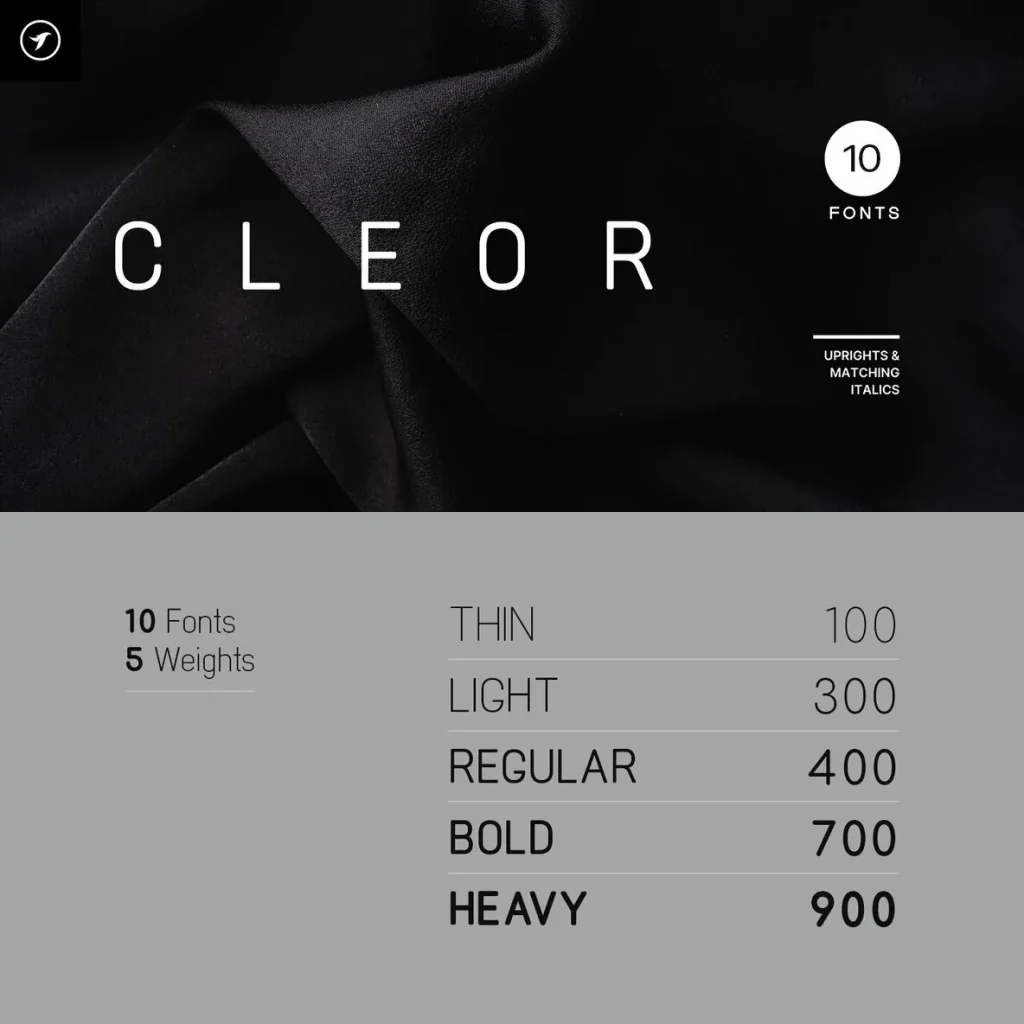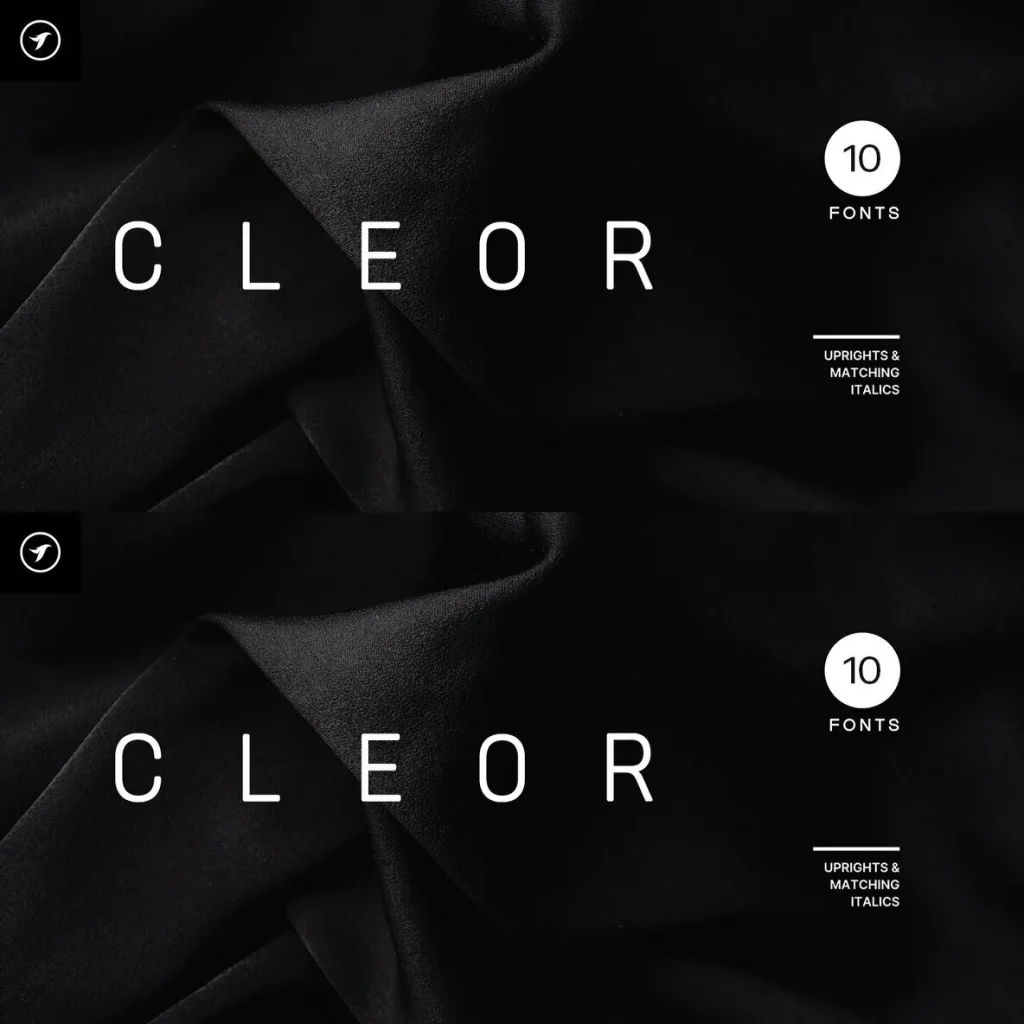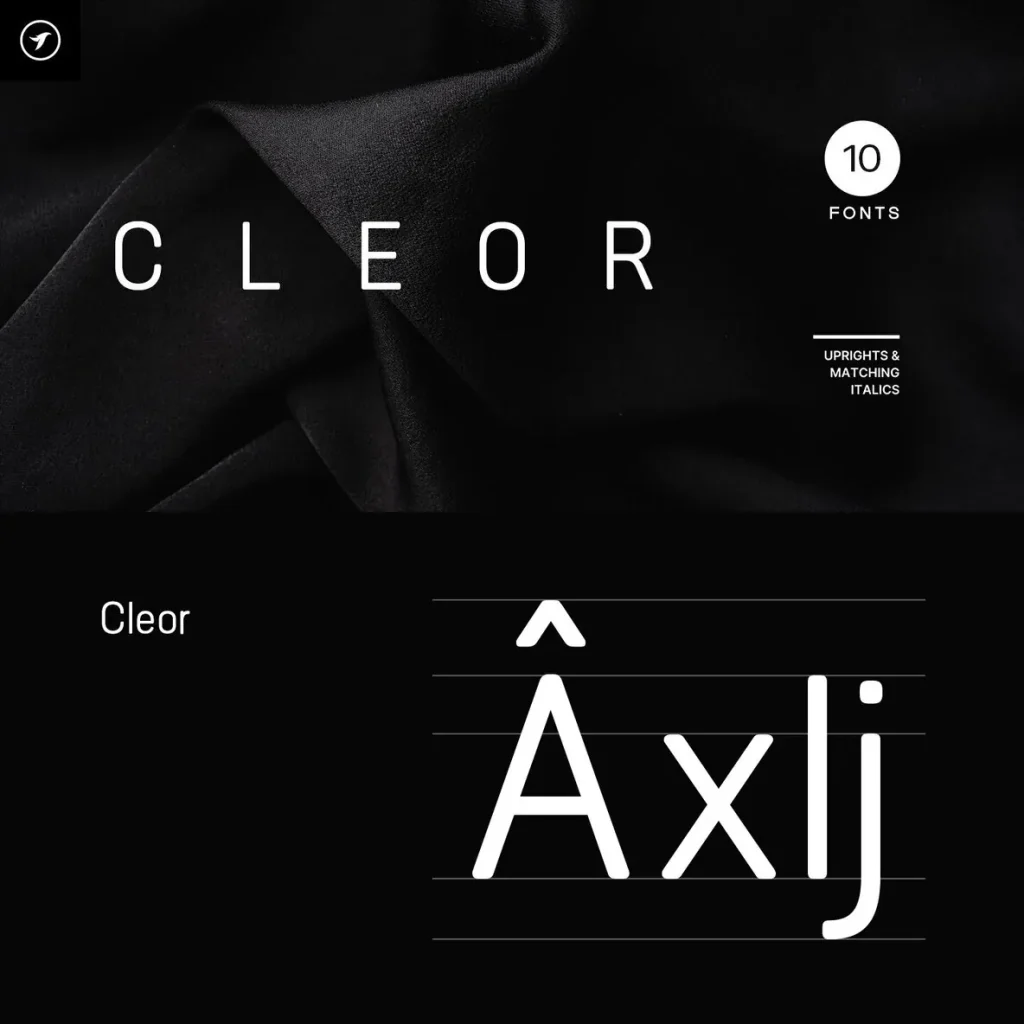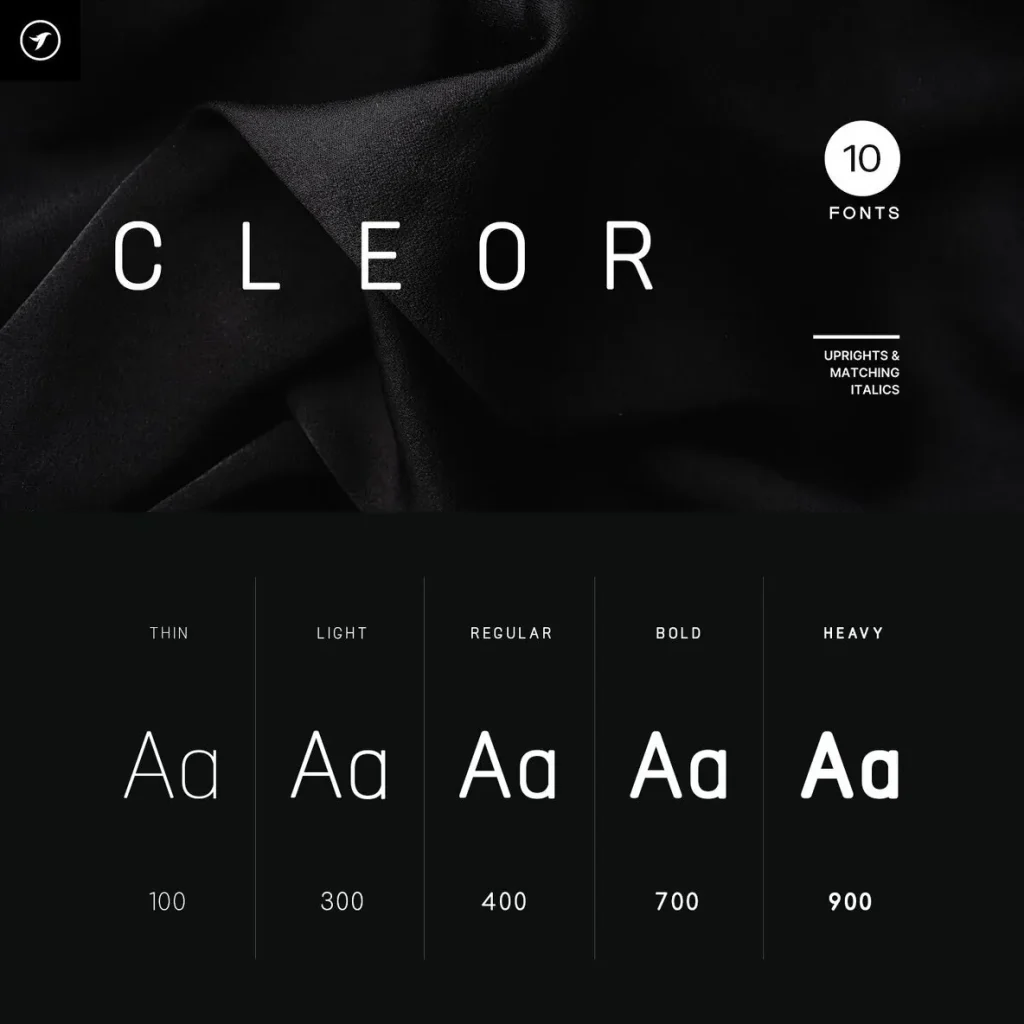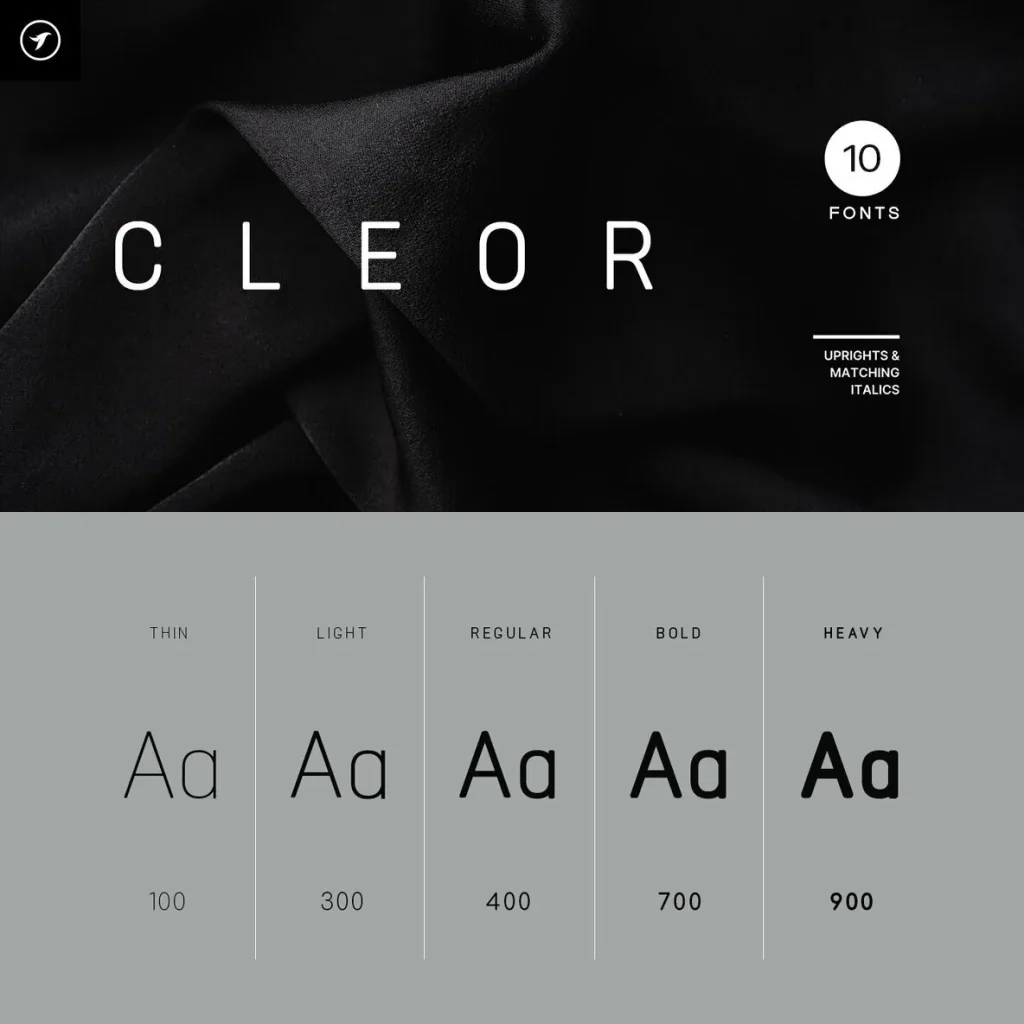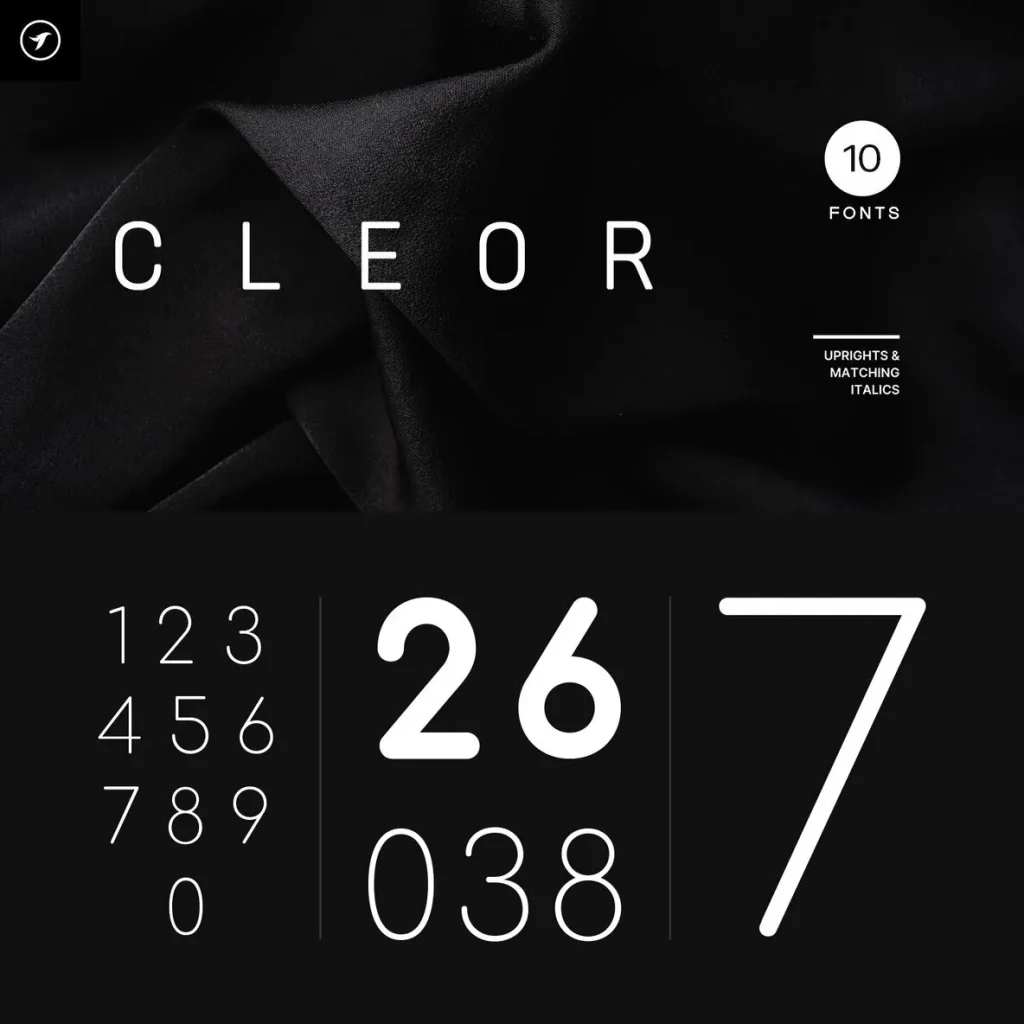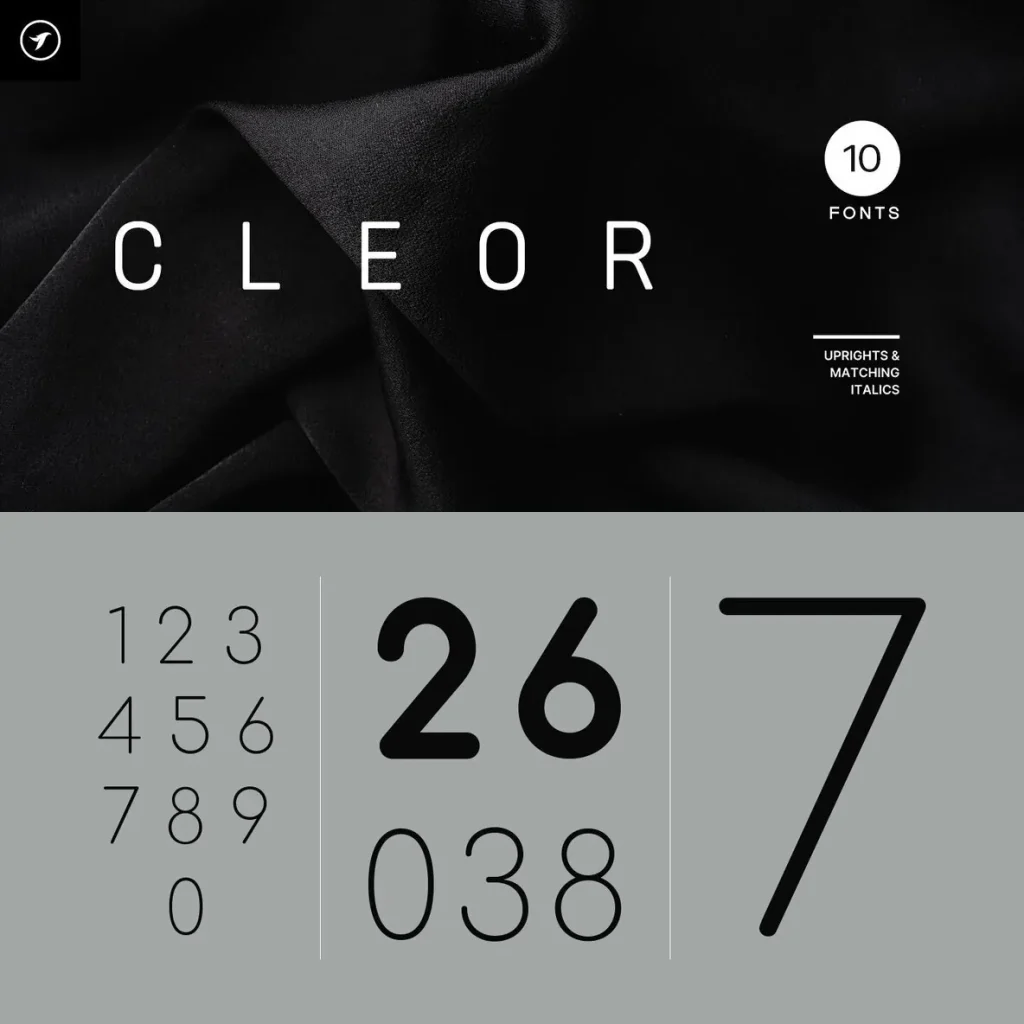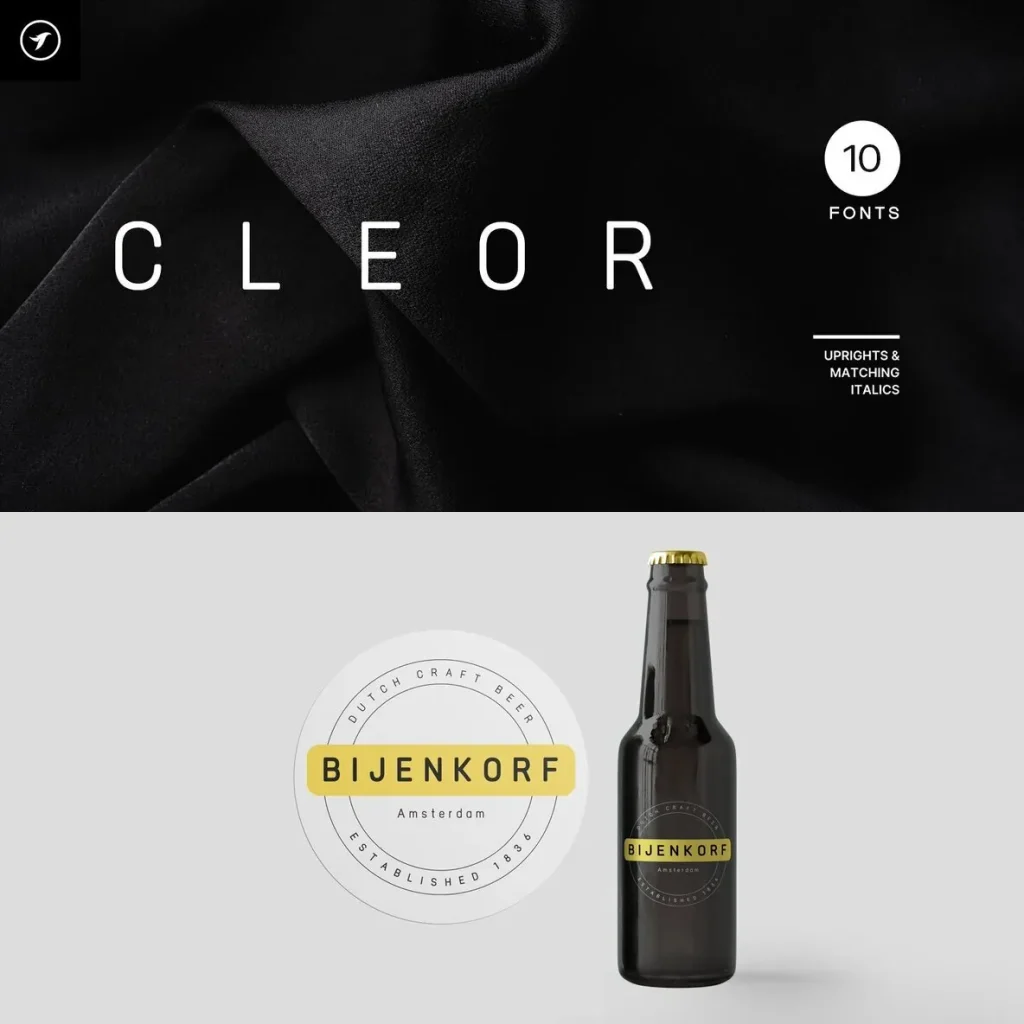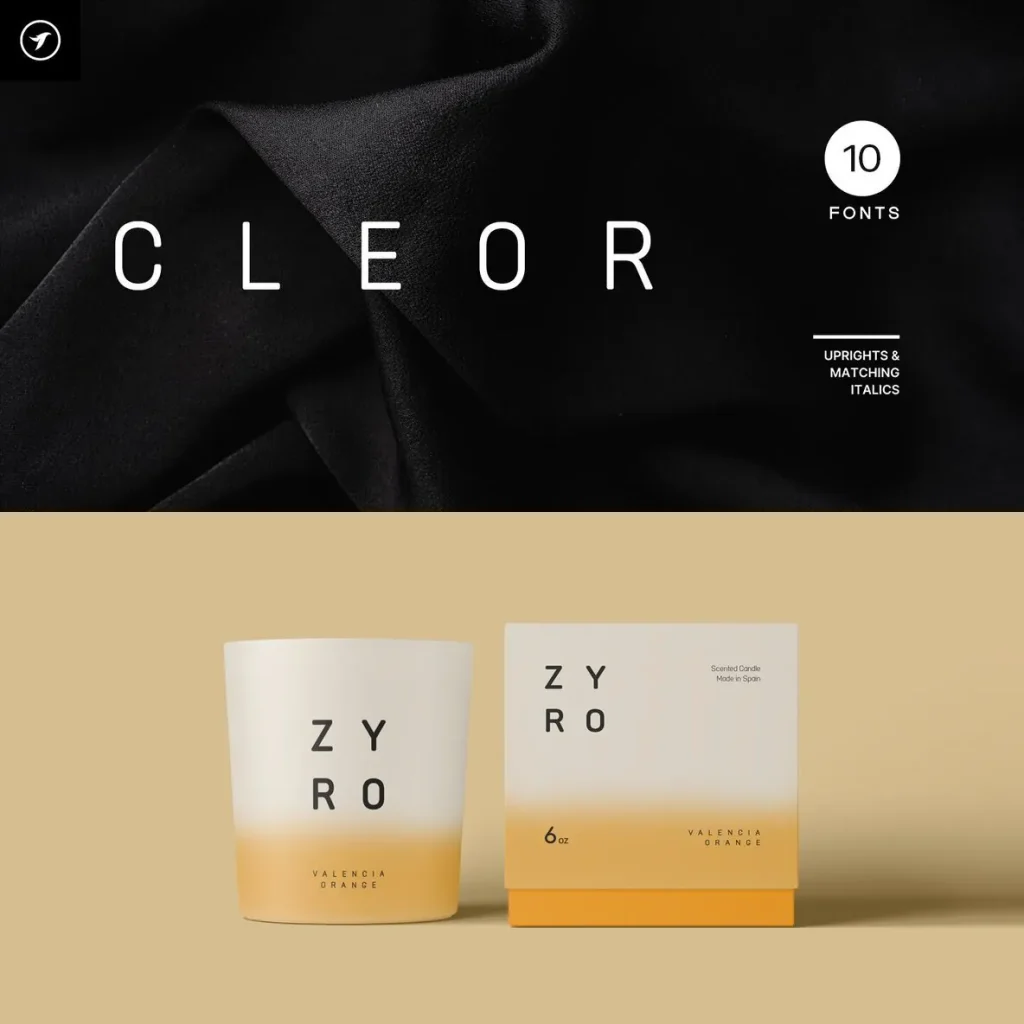
CLEOR — Refined Display Drama
CLEOR is a unique display typeface family with refined shapes, modern aesthetics, and a distinctive visual character. Its elegant construction gives headlines a polished presence, while its creative details add a clear point of view. The result is strong, memorable typography suited to design work that needs to feel considered and visually confident.
Use CLEOR for premium branding, editorial design, packaging, posters, and contemporary creative projects. Its display-focused personality makes it a fitting choice for compositions where letterforms carry much of the message. With its balance of elegance and originality, CLEOR gives designers a sharp typographic voice for high-impact visual communication.